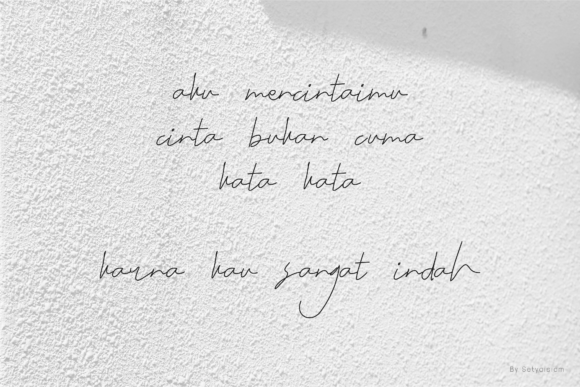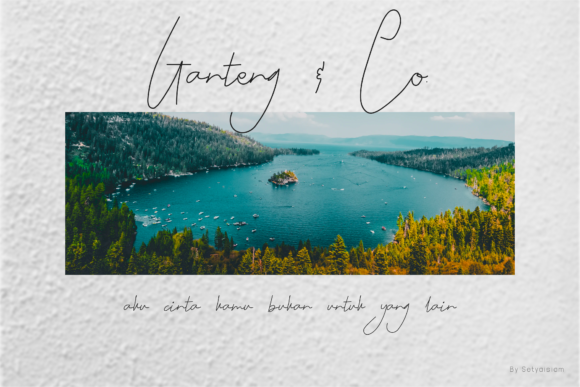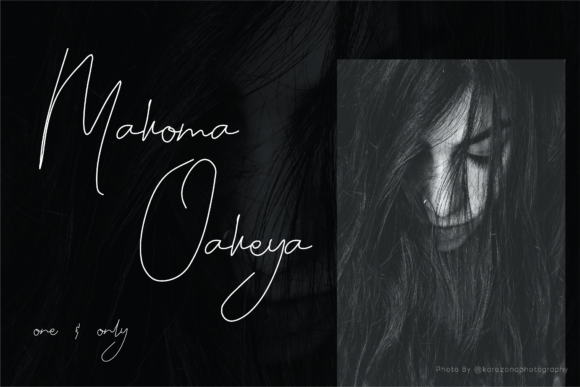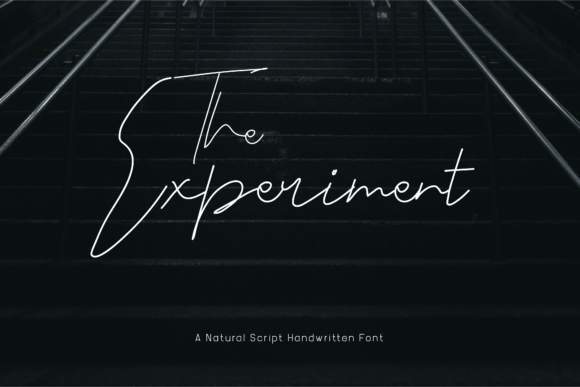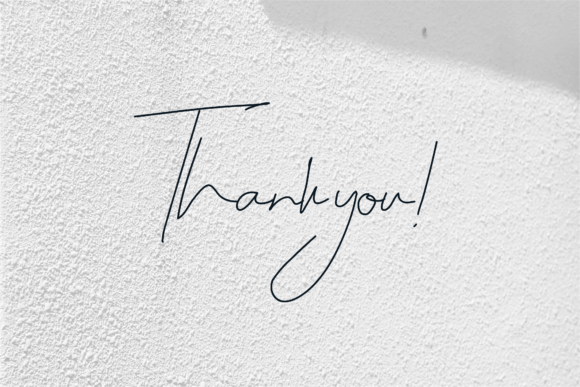
Guyonan Font
About Guyonan Font
Guyonan is a beautiful and elegant handwritten font that adds a touch of charm and sophistication to your design projects. With its thin and delicate strokes, Guyonan exudes a sense of grace and elegance that is perfect for creating visually pleasing and captivating designs.
This font is versatile and can be used in a wide range of design applications. Whether you’re working on branding, logos, invitations, stationery, or any other creative projects, Guyonan brings a charming and refined appearance that enhances the overall aesthetic.
The thin and elegant nature of Guyonan allows it to blend seamlessly with various design styles and themes. It can be used in both formal and informal contexts, adapting to the tone and mood of your project effortlessly.
With Guyonan, you can create stunning headlines, titles, or focal points that draw attention and make a lasting impression. Its elegant and refined look adds a touch of sophistication to your typography, making it stand out in a subtle and understated way.
Furthermore, Guyonan’s readability remains intact even with its thin strokes. The carefully crafted letterforms ensure legibility, ensuring that your message comes across clearly and effectively.
Whether it’s printed materials or digital designs, Guyonan brings a sense of elegance and charm to your projects. It can elevate the visual appeal of your branding materials, create an inviting atmosphere in your wedding invitations, or add a touch of sophistication to your social media graphics.
In summary, Guyonan is a thin and elegant handwritten font that adds a charming and refined appearance to your design projects. Its versatility, readability, and elegant aesthetics make it a great choice for any project that requires a touch of sophistication and charm.